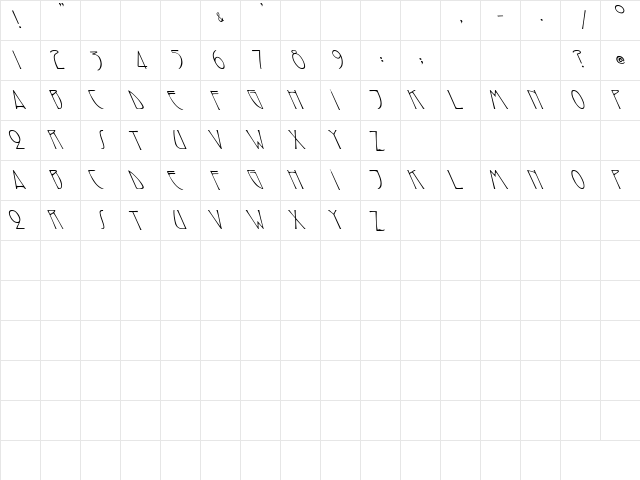
Sarah Caps Extreme Lefti Regular
Design Context for Sarah Caps Extreme Lefti Typeface
Sarah Caps Extreme Lefti offers clean, dependable letterforms without strong stylistic allegiance, making it a practical choice for designers who need flexibility.